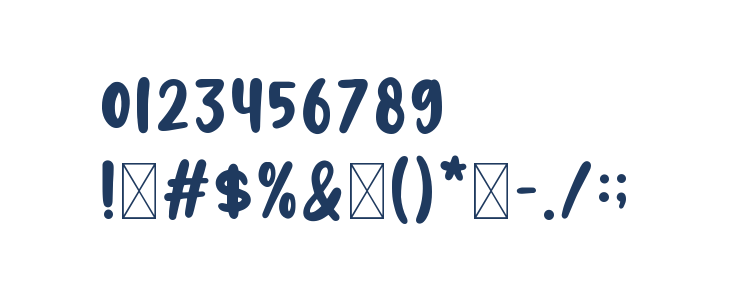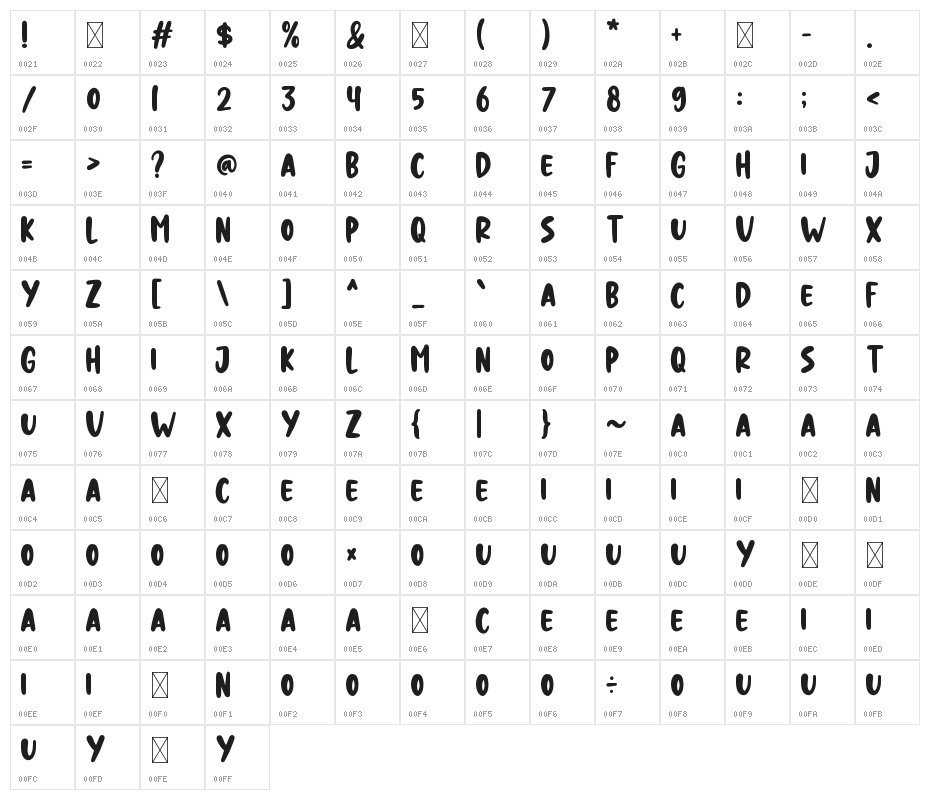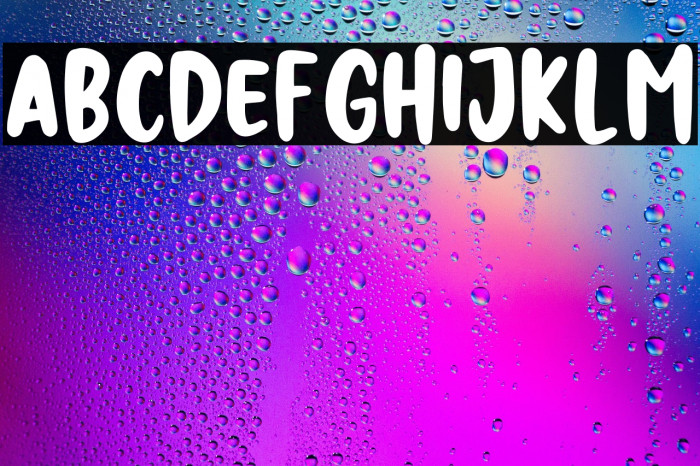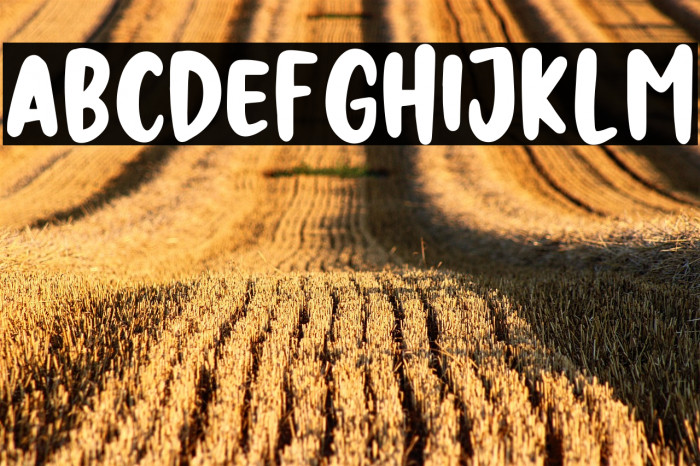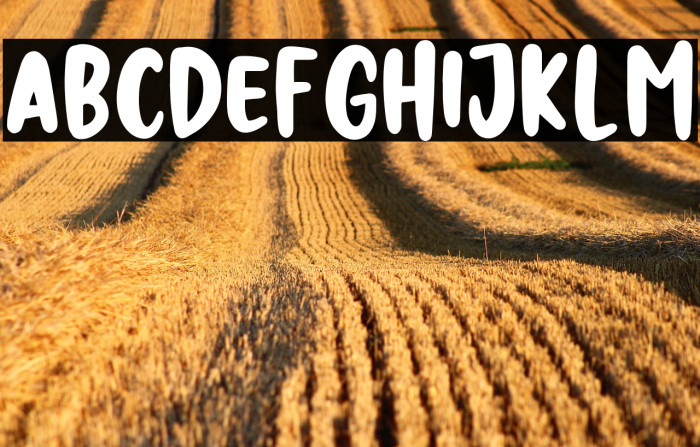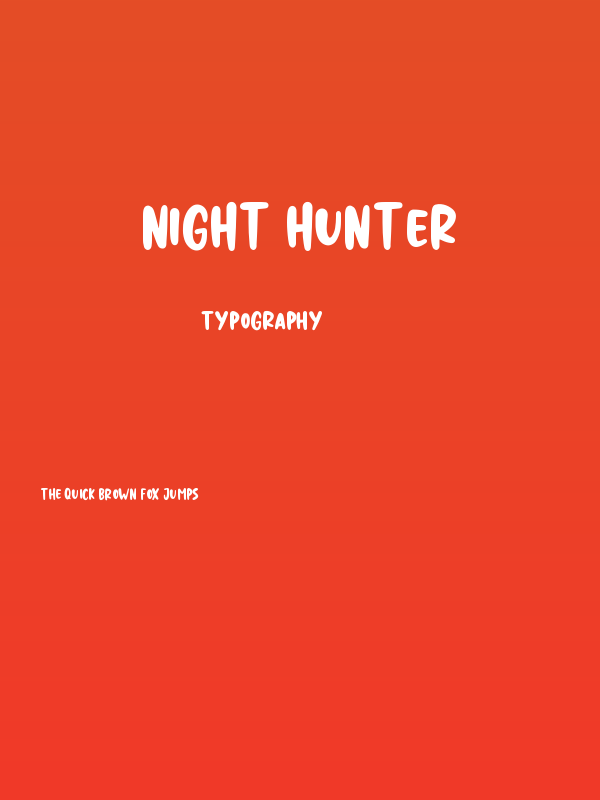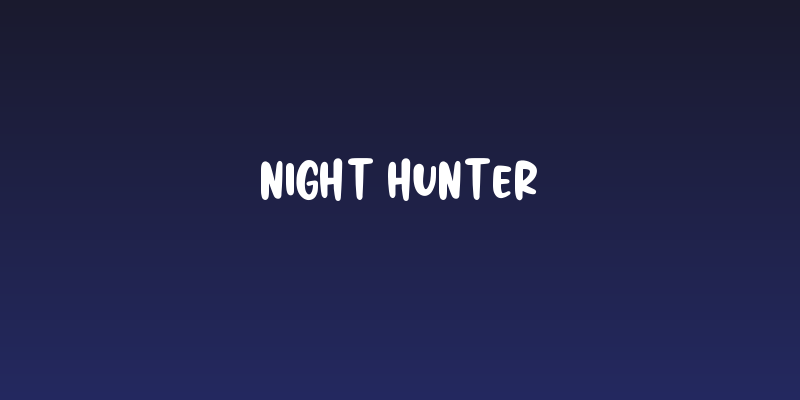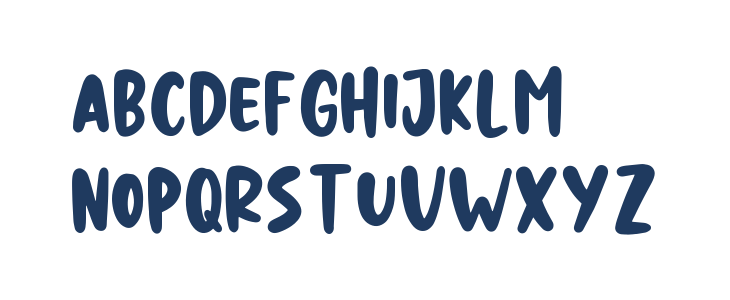
NIGHT HUNTER Font
NIGHT HUNTER Description
This font features a bold, playful style with rounded edges and a hand-drawn appearance. The uppercase and lowercase letters maintain a consistent thickness, giving it a cohesive look. The characters are slightly condensed, creating a compact feel that is both modern and approachable. The numerals and special characters follow the same stylistic approach, ensuring uniformity across all glyphs. This font's informal and friendly design makes it suitable for a variety of creative applications.
| Proposed Projects | Ideal for children's books, playful branding, posters, and social media graphics. |